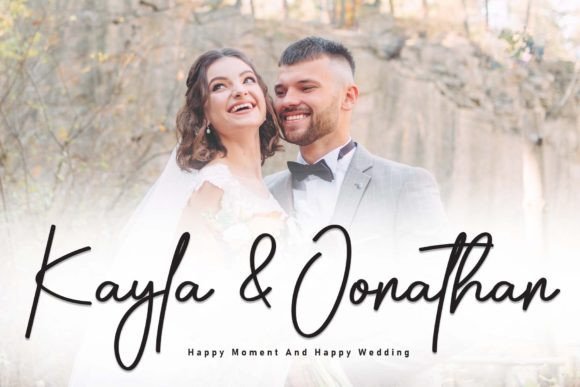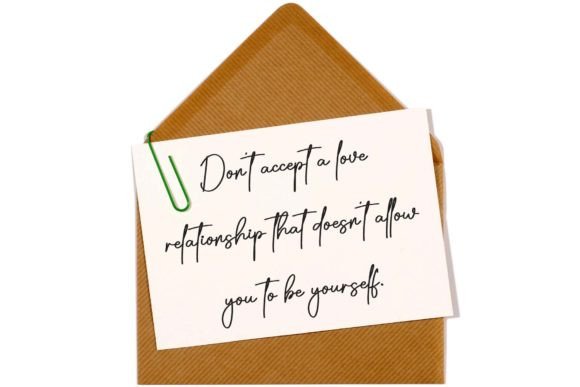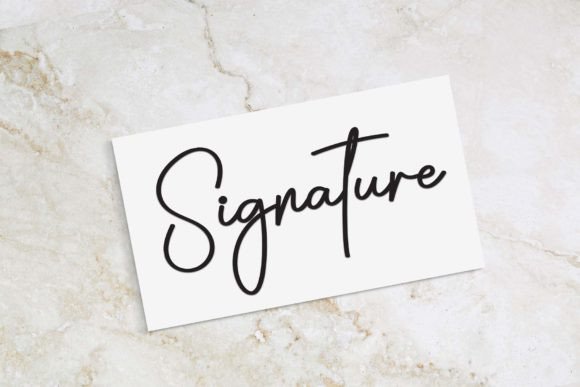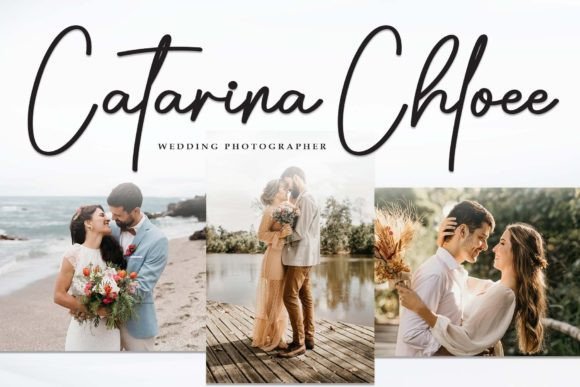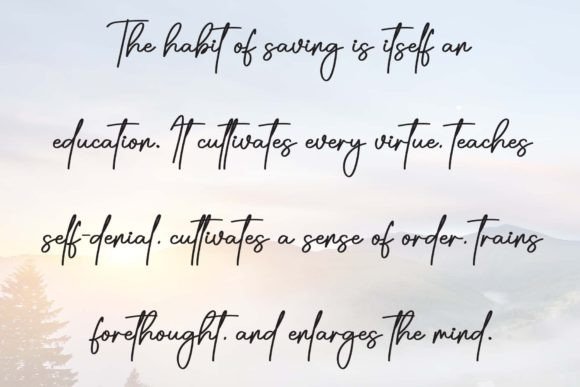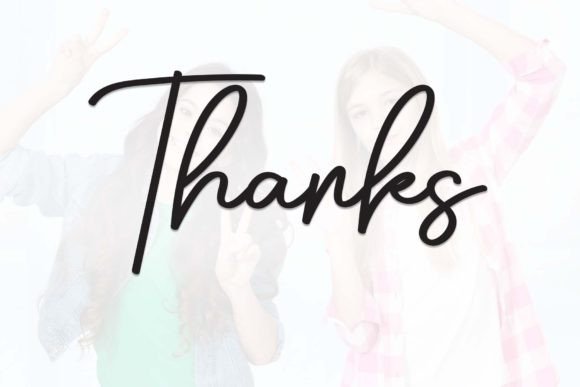
Introducing Bestie Kids Font: The Ultimate Choice for Designers and Crafters
Are you a designer or crafter looking for a font that can add a touch of personality and whimsy to your creations? Look no further than Bestie Kids Font, a lovely and timeless handwritten font that is perfect for creating eye-catching logos, branding, and quotes.
What Makes Bestie Kids Font So Special?
Bestie Kids Font is a beautifully crafted font that features a unique and beautiful touch in every letter. The font is designed to be highly legible and versatile, making it perfect for a wide range of design projects, from logos and branding to quotes and social media graphics.
One of the standout features of Bestie Kids Font is its handwritten style, which gives it a warm and personal feel that is perfect for creating designs that are both fun and sophisticated. The font is also highly customizable, allowing you to adjust the size, color, and style to fit your design needs.
Why Choose Bestie Kids Font for Your Design Projects?
There are many reasons why Bestie Kids Font is the perfect choice for designers and crafters. Here are just a few:
- Unique and Beautiful Touch: Every letter in Bestie Kids Font has a unique and beautiful touch that will make your designs stand out from the crowd.
- Highly Legible: The font is designed to be highly legible, even at small sizes, making it perfect for creating designs that need to be easy to read.
- Versatile: Bestie Kids Font is highly versatile and can be used for a wide range of design projects, from logos and branding to quotes and social media graphics.
How to Use Bestie Kids Font in Your Design Projects
Using Bestie Kids Font in your design projects is easy. Here are a few tips to get you started:
- Pair it with Other Fonts: Bestie Kids Font looks great when paired with other fonts, such as sans serif fonts or script fonts.
- Use it for Headlines and Titles: The font is perfect for creating eye-catching headlines and titles that will grab the attention of your audience.
- Add it to Your Branding: Bestie Kids Font is a great choice for branding, and can be used to create a consistent look and feel across all of your marketing materials.
Tips and Tricks for Getting the Most Out of Bestie Kids Font
Here are a few tips and tricks for getting the most out of Bestie Kids Font:
- Experiment with Different Sizes and Colors: Don’t be afraid to experiment with different sizes and colors to find the look that works best for your design.
- Use it for Quotes and Social Media Graphics: Bestie Kids Font is perfect for creating quotes and social media graphics that will stand out from the crowd.
- Try it with Different Backgrounds: The font looks great on a variety of backgrounds, from solid colors to patterns and textures.
Bestie Kids Font is a lovely and timeless handwritten font that is perfect for designers and crafters who want to add a touch of personality and whimsy to their creations. With its unique and beautiful touch, high legibility, and versatility, it’s the perfect choice for a wide range of design projects. Whether you’re creating logos and branding, quotes and social media graphics, or just looking for a font that will add some fun and sophistication to your designs, Bestie Kids Font is the ultimate choice.